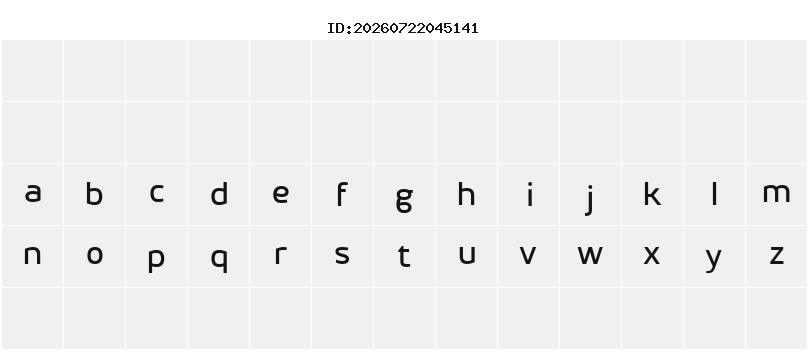
henorias Preview
• Font Name: henorias
• Full Font Name: henorias
• PostScript Name: henorias
• Designer: Beno”t Sjoholm
• Manufacturer: Beno”t Sjoholm
About henorias.ttf
henorias.ttf is a modern, elegant sans-serif font designed for ultimate readability and visual harmony. Perfect for branding, headlines, web design, and print materials.